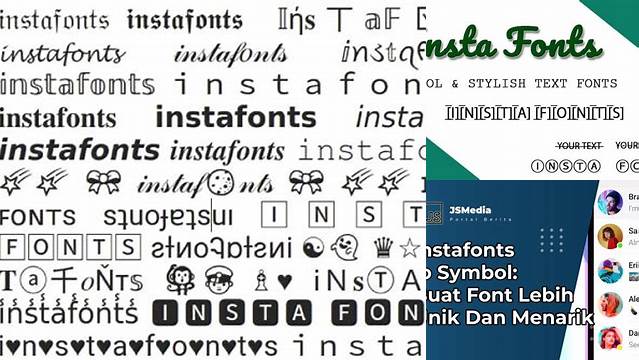
Instafonts.io Font Symbols V3: A Deep Dive
Hey guys! Ever stumbled upon those cool, quirky fonts and symbols all over Instagram and wondered where they come from? Well, chances are, many of them are from Instafonts.io Font Symbols V3. This isn't just your average font library; it's a treasure trove of creative typography that can seriously elevate your social media game. Let's dive into what makes Instafonts.io so special and how you can use it to make your content pop!
What is Instafonts.io Font Symbols V3?
Instafonts.io Font Symbols V3 is essentially a web-based tool that provides users with a vast collection of unique fonts and symbols. Unlike your standard system fonts, these are designed to add flair and personality to your text. Think of it as a stylist for your words! Whether you're crafting Instagram captions, designing social media graphics, or even just jazzing up your text messages, Instafonts.io offers a wide array of options to choose from. This version, V3, is particularly known for its expanded library and improved functionality, making it a go-to resource for content creators and social media enthusiasts alike. The platform is user-friendly, allowing you to easily copy and paste fonts into your desired application, whether it's Instagram, Twitter, or even a design program like Photoshop. Itβs all about making your content stand out in a world of endless scrolling, and Instafonts.io helps you do just that.
The Benefits of Using Unique Fonts and Symbols
Okay, so why bother using unique fonts and symbols in the first place? Well, in today's crowded digital landscape, standing out is the name of the game. Using unique fonts and symbols from platforms like Instafonts.io can give your content that extra oomph it needs to catch people's eyes. Think about it β everyone's using the same standard fonts on social media. By switching things up, you instantly create a visual distinction that draws attention. These cool fonts aren't just about aesthetics, though. They can also help you express your personality and brand identity. A playful font can inject some fun into your captions, while a bold, stylish font can convey confidence and sophistication. Moreover, using special symbols can break up text, highlight key points, and generally make your content more engaging and readable. Itβs all about creating a memorable impression and keeping your audience hooked. In short, unique fonts and symbols are a powerful tool for enhancing your online presence and making your content truly shine.
Exploring Font Styles Available on Instafonts.io V3
Instafonts.io V3 is like a candy store for fonts, guys! You've got everything from elegant and scripty styles that feel super fancy, to bold and blocky fonts that scream attention. There are quirky, playful options that are perfect for adding a touch of fun, and sleek, modern fonts that give off a super professional vibe. Beyond the basic styles, you'll find fonts with cool textures, like dotted or outlined effects, and even some that mimic handwritten styles for a personal touch. The variety is seriously impressive! This means you can find the perfect font to match the tone and style of your message, no matter what you're trying to say. Want to make a romantic announcement? There's a font for that. Need to promote a tech product? Yep, there's a font for that too! The sheer range of options makes Instafonts.io V3 a fantastic resource for anyone looking to add some visual flair to their text.
Symbol Categories on Instafonts.io
But wait, there's more to Instafonts.io than just fonts! The platform also boasts an extensive collection of symbols, neatly organized into categories to make your life easier. You'll find everything from basic shapes and arrows to more specialized symbols like currency signs, mathematical operators, and even little icons perfect for bullet points or section dividers. Emojis are also part of the mix, so you can easily add those expressive faces and icons to your text. What's really cool is how these symbols can be used to break up long blocks of text, add visual interest, and even convey emotions or concepts without words. Need to emphasize a point? Throw in an arrow or a star! Want to add a touch of whimsy? A heart or a flower will do the trick. The symbol categories on Instafonts.io provide a quick and easy way to enhance your text and make it more visually appealing, which is a total win in the world of online content.
How Instafonts.io Enhances Social Media Content
Let's talk about how Instafonts.io can seriously up your social media game. In a world where everyone's scrolling through endless feeds, grabbing attention is crucial, and that's where unique fonts and symbols come in. Imagine your Instagram caption suddenly sporting a stylish font that perfectly matches your photo's vibe β instant eye-catcher! Or think about using cool symbols to highlight key information in your tweets, making your message stand out in a sea of text. Instafonts.io allows you to create visually appealing content that not only looks great but also reflects your personality or brand. It's not just about aesthetics, though. Using different fonts and symbols can also help you organize your content, making it easier for your audience to digest. Think of it as visual storytelling β you're using typography to guide your readers and keep them engaged. Whether you're a social media influencer, a small business owner, or just someone who loves to share cool stuff online, Instafonts.io is a fantastic tool for making your content shine.
Instafonts.io for Branding and Marketing
For businesses and brands, Instafonts.io can be a game-changer. Think about it: consistent branding is key to recognition, and typography plays a massive role in that. Using a signature font or a set of symbols across your social media posts, marketing materials, and even website content can help create a cohesive and memorable brand identity. Instafonts.io makes it easy to experiment with different styles and find the perfect match for your brand's personality. A sleek, modern font might be perfect for a tech company, while a playful, handwritten font could be ideal for a creative business. Beyond aesthetics, using unique fonts and symbols can also help your marketing messages stand out from the competition. When your ads or promotions feature eye-catching typography, they're more likely to grab attention and leave a lasting impression. So, if you're looking for a simple yet effective way to boost your branding and marketing efforts, Instafonts.io is definitely worth exploring.
Instafonts.io and Content Creation
If you're a content creator, you already know how important it is to keep your audience engaged. That's where Instafonts.io comes in super handy! Using different fonts and symbols can inject personality and flair into your content, making it more visually appealing and fun to consume. Whether you're crafting eye-catching thumbnails for your YouTube videos, designing engaging graphics for your blog posts, or creating shareable quotes for your social media, Instafonts.io offers a ton of creative options. It's not just about making things look pretty, though. Unique typography can also help you communicate your message more effectively. A bold font can emphasize key points, while a stylish font can add a touch of sophistication. By experimenting with different styles, you can create content that not only grabs attention but also resonates with your audience. So, if you're looking to elevate your content creation game, Instafonts.io is a fantastic tool to have in your arsenal.
Comparing Instafonts.io V3 with Previous Versions
Okay, let's talk about what makes Instafonts.io V3 stand out from its predecessors. If you've used earlier versions, you'll immediately notice the expanded font and symbol library. V3 boasts a significantly larger collection, giving you even more options to play with. But it's not just about quantity; there's also been a focus on quality. The fonts in V3 are more diverse and stylish, catering to a wider range of tastes and needs. Another key improvement is the user interface. V3 is sleeker and more intuitive, making it even easier to find the perfect font or symbol for your project. The real-time preview feature has also been enhanced, so you can see exactly how your text will look in different styles. Overall, Instafonts.io V3 is a major upgrade, offering more variety, better usability, and a more polished experience. If you're serious about typography and want the best tools at your fingertips, V3 is definitely the way to go.
Resources for Learning More About Typography
Want to dive deeper into the world of typography? There are tons of fantastic resources out there to help you learn more! Online platforms like Skillshare and Coursera offer courses on typography fundamentals, font pairing, and design principles. Websites like Typewolf and Fonts in Use showcase examples of excellent typography and provide insights into font choices. Books like "The Elements of Typographic Style" by Robert Bringhurst and "Thinking with Type" by Ellen Lupton are considered classics in the field. You can also follow typography experts and designers on social media for inspiration and insights. Experimenting with different fonts and practicing your design skills is also crucial. The more you learn about typography, the better you'll become at creating visually appealing and effective content. So, don't be afraid to explore and have fun with it!